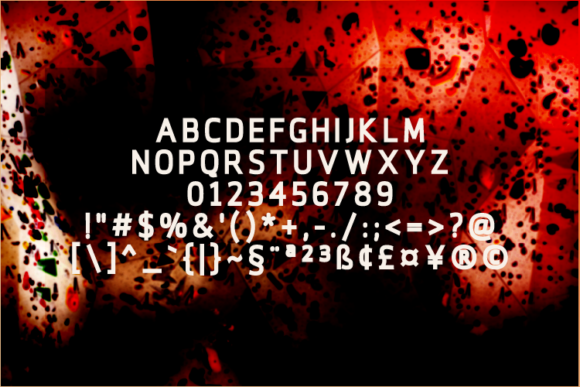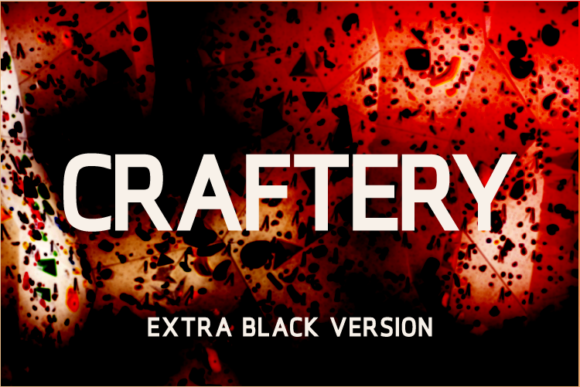
Introduction to Craftery Extra Black Font
Craftery is a modern sans serif font inspired by the simplicity of classic geometric shapes.
It will add a minimalist feel to any design project .